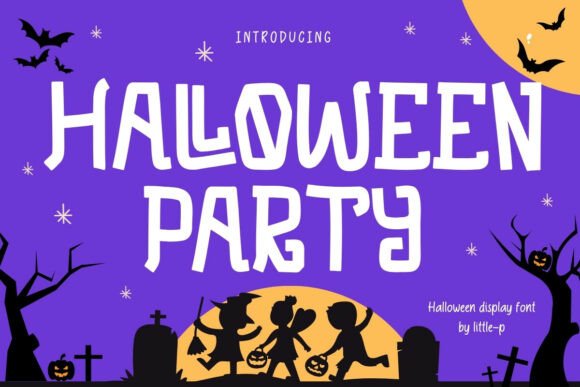
Halloween Party Font: The Ultimate Guide to a Spooktacular Display Font
As the spookiest time of the year approaches, designers and party planners are on the lookout for the perfect font to give their Halloween-themed projects a playful and eerie touch. Look no further than the Halloween Party font, a quirky and charming display font designed specifically for Halloween celebrations. In this article, we’ll dive into the world of Halloween Party font, exploring its unique features, uses, and benefits.
What is Halloween Party Font?
Halloween Party font is a playful and spooky display font crafted especially for Halloween-themed projects. Its irregular letterforms are designed to mimic the fun chaos of trick-or-treating nights, featuring bold strokes, subtle twists, and a hand-crafted charm that exudes an eerie yet whimsical vibe. This font is perfect for creating eye-catching posters, party invitations, kids’ crafts, t-shirt designs, and festive printables that capture the essence of Halloween.
Key Features of Halloween Party Font
- Quirky and Irregular Letterforms: Halloween Party font boasts unique and playful letterforms that add a touch of whimsy to any design.
- Bold Strokes: The font features bold strokes that give it a sturdy and attention-grabbing appearance.
- Subtle Twists: The subtle twists in the letterforms add a touch of elegance and sophistication to the font.
- Hand-Crafted Charm: The font’s hand-crafted charm gives it a personal and unique touch that’s perfect for Halloween-themed designs.
- Eerie yet Whimsical Vibe: Halloween Party font strikes the perfect balance between eerie and whimsical, making it ideal for Halloween designs.
Uses of Halloween Party Font
Halloween Party font is a versatile font that can be used in a variety of design projects, including:
Design Projects that Benefit from Halloween Party Font
- Posters: Create eye-catching posters for Halloween parties, haunted houses, or spooky events.
- Party Invitations: Design playful and spooky party invitations that set the tone for a fun and eerie celebration.
- Kids’ Crafts: Use Halloween Party font to create fun and engaging kids’ crafts, such as Halloween-themed coloring pages or activity sheets.
- T-Shirt Designs: Design bold and eye-catching t-shirt designs that are perfect for Halloween parties or trick-or-treating.
- Festive Printables: Create festive printables, such as Halloween-themed banners, signs, or decorations, using Halloween Party font.
Benefits of Using Halloween Party Font
Halloween Party font offers several benefits that make it an ideal choice for Halloween-themed designs:
Why Choose Halloween Party Font?
- Attention-Grabbing: The font’s bold and playful design makes it perfect for catching attention and setting the tone for a spooky celebration.
- Legible: Despite its playful design, Halloween Party font remains legible, making it easy to read and understand.
- Versatile: The font can be used in a variety of design projects, from posters to t-shirt designs.
- Unique: Halloween Party font’s hand-crafted charm and quirky design make it a unique and standout font for Halloween-themed designs.
Tips for Using Halloween Party Font
To get the most out of Halloween Party font, follow these tips:
Tips for Using Halloween Party Font
- Use it Sparingly: Use Halloween Party font sparingly to avoid overwhelming the design. It’s perfect for headings or titles.
- Pair it with Other Fonts: Pair Halloween Party font with other fonts to create a unique and visually appealing design.
- Experiment with Colors: Experiment with different colors to find the perfect combination that complements the font’s eerie yet whimsical vibe.
- Have Fun: Most importantly, have fun with Halloween Party font! It’s a playful font that’s meant to add a touch of whimsy to your designs.
Halloween Party font is a unique and playful display font that’s perfect for Halloween-themed designs. Its quirky and irregular letterforms, bold strokes, and hand-crafted charm make it an ideal choice for creating eye-catching posters, party invitations, kids’ crafts, t-shirt designs, and festive printables. With its attention-grabbing design, legibility, and versatility, Halloween Party font is sure to become a go-to font for designers and party planners alike.